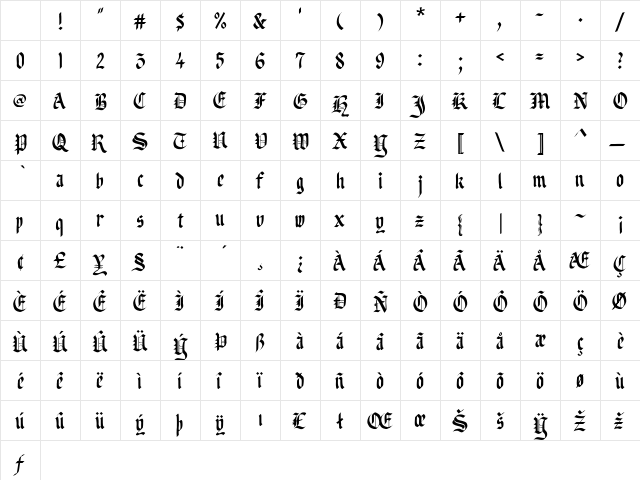
Blacklet is a composed and adaptable typeface that performs quietly and consistently across a wide range of design contexts. Its bold stroke weight gives it real presence on the page.